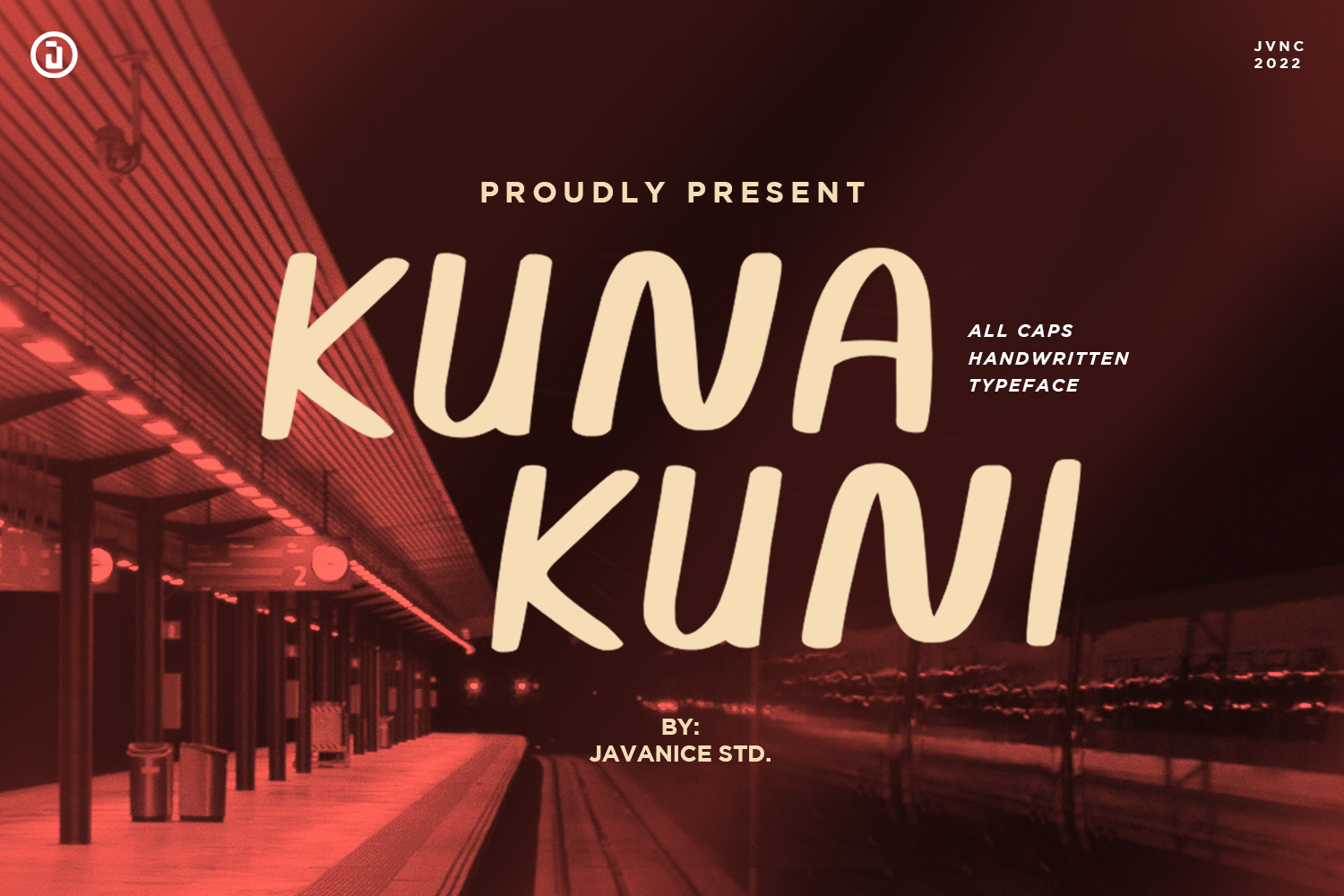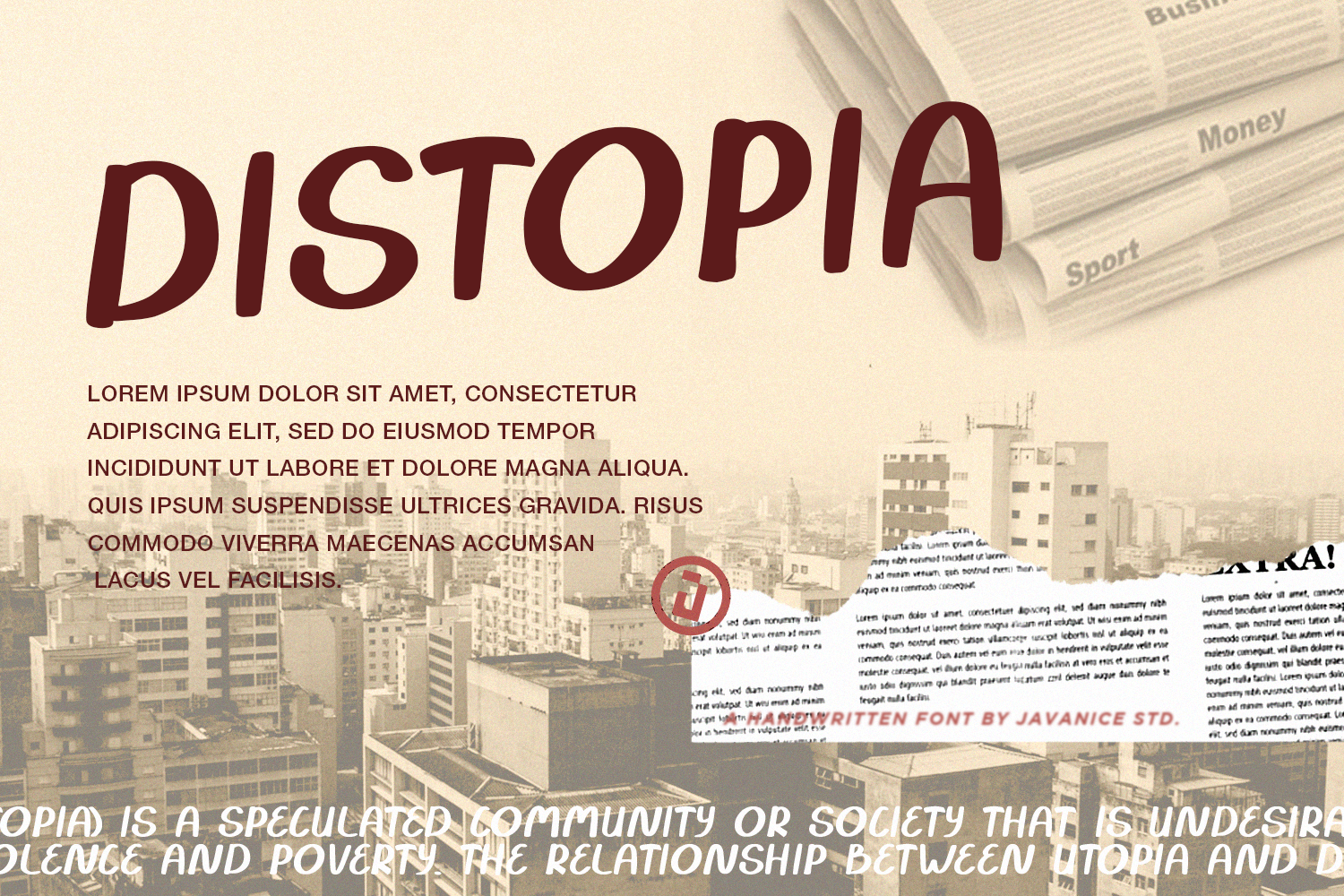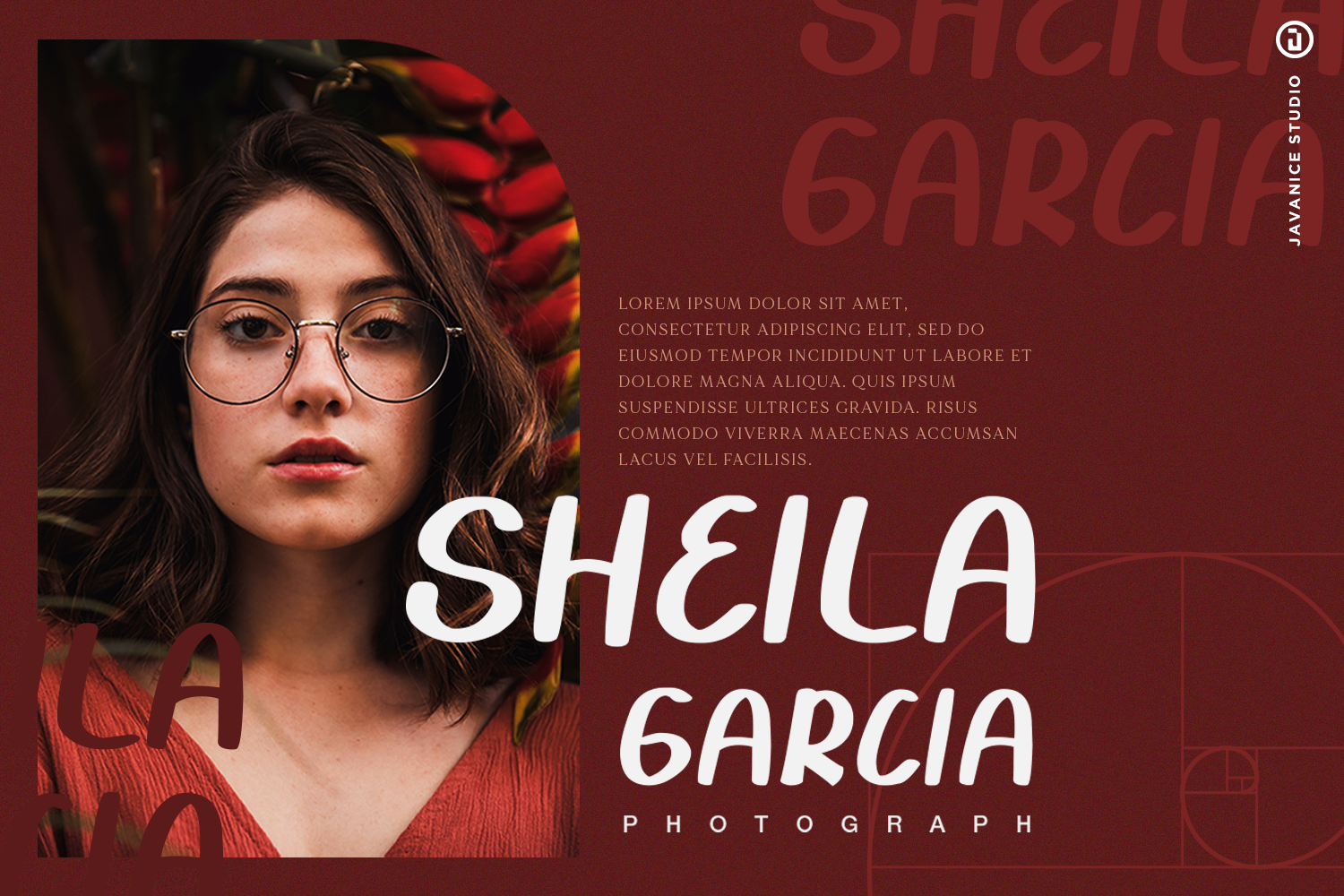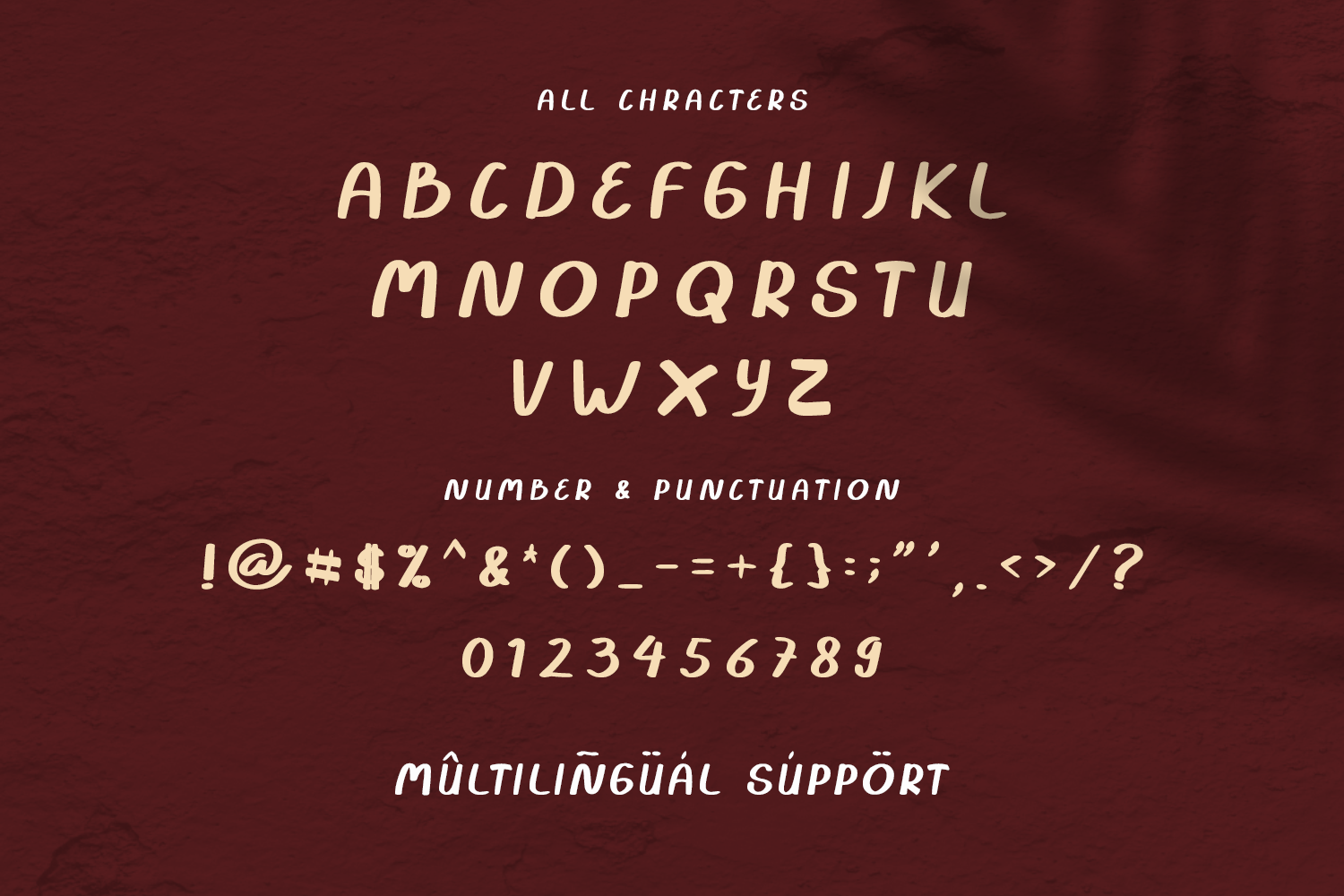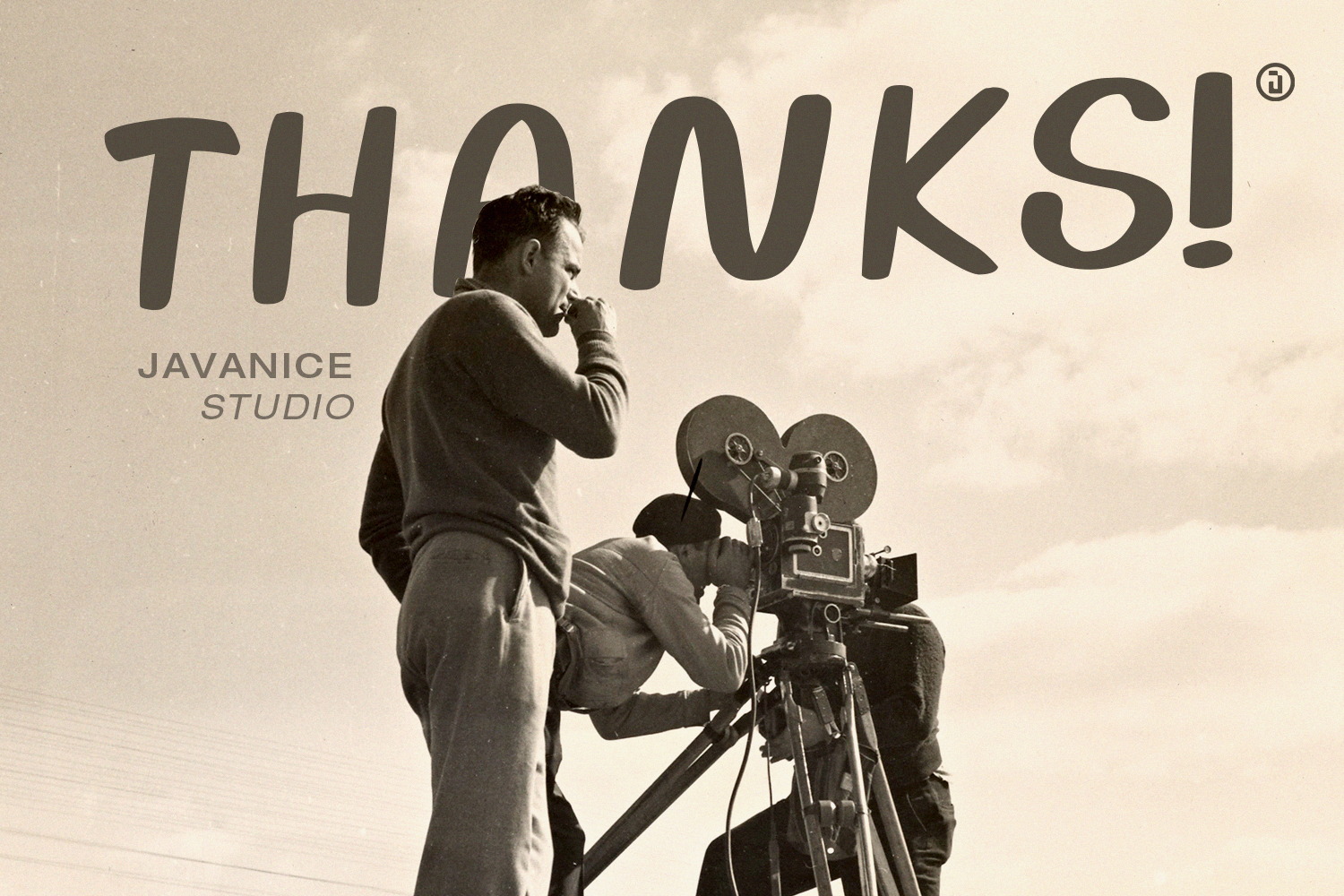
Kuna Kuni Handwritten Font
This is a All Caps Handwritten Typeface Font. Kuna Kuni is perfect for branding project, apparel, labels, magazines, books, greeting / wedding cards, packaging, fashion, make up, stationery, and any type of advertising purpose or just used to express words above the background.